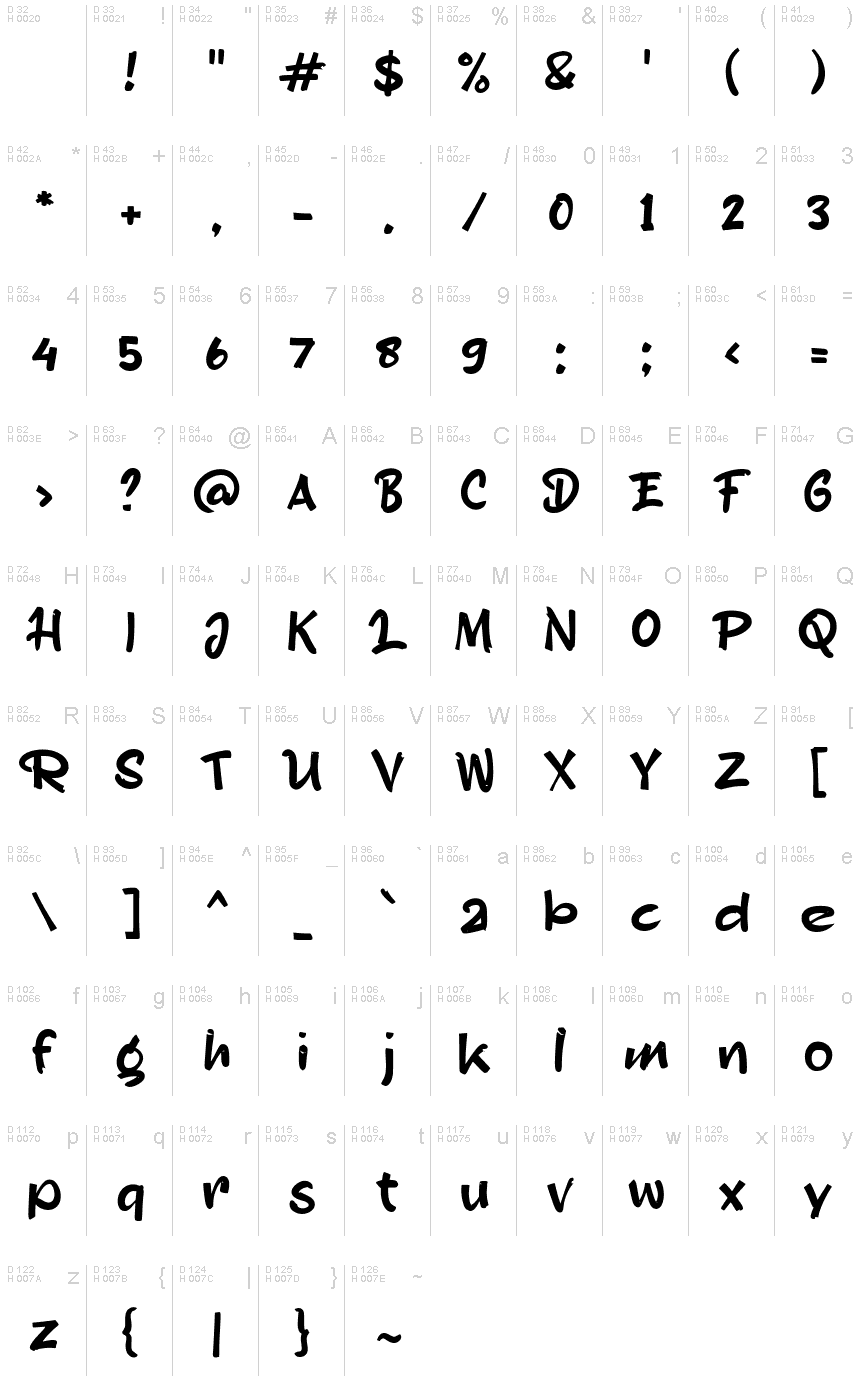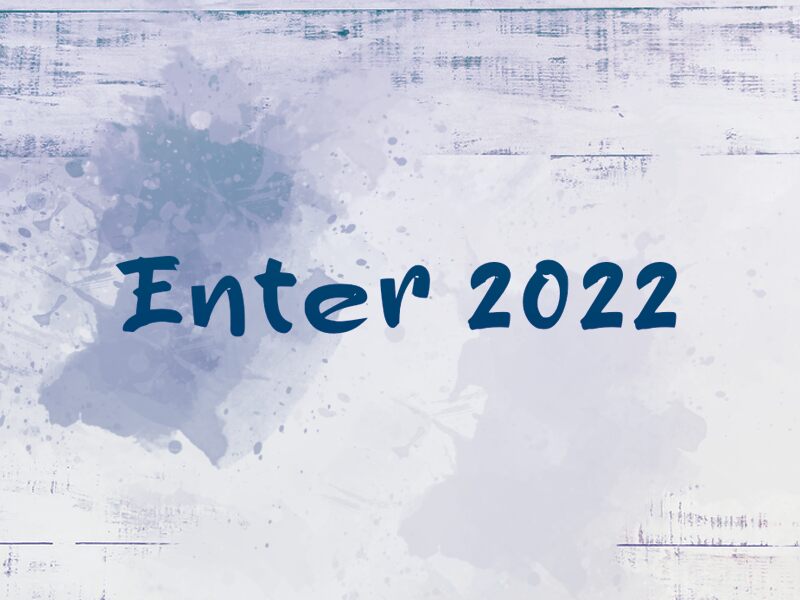
Enter 2022
Looking for a bold, edgy font that will make your designs pop? Look no further than Enter 2022, a stylish brush font from designer Wahyu Eka Prasetya. Whether you're creating posters, logos, or social media graphics, Enter 2022's bold strokes and modern style are sure to grab your audience's attention. This font is perfect for projects that require a bold, expressive, and contemporary look, such as fashion, music, or sports branding.